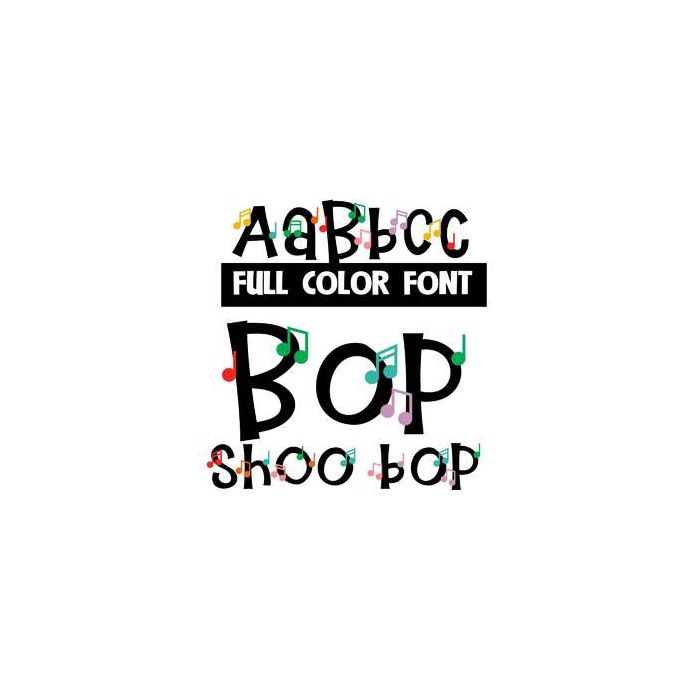
This full-color font features colorful musical notes on lettering. This font works best for titles, displays, posters and more. Please note color fonts will show as black in non compatible programs. This font type is compatible with Silhouette Studio.